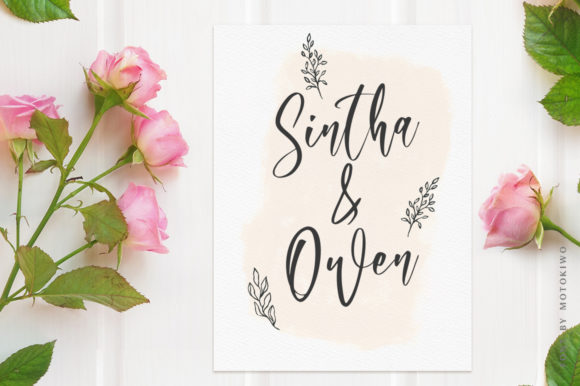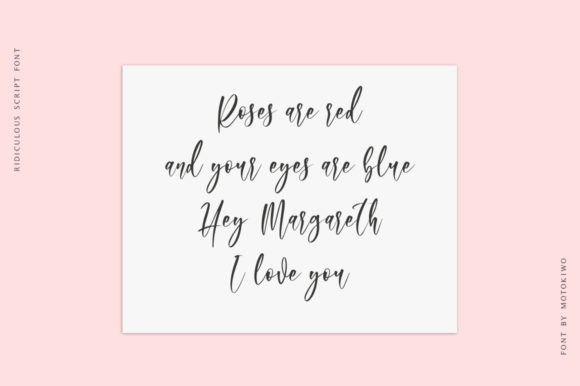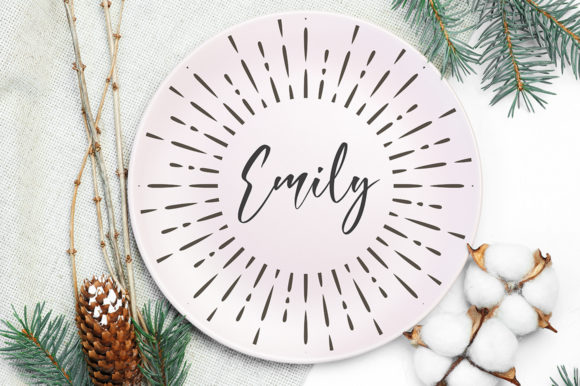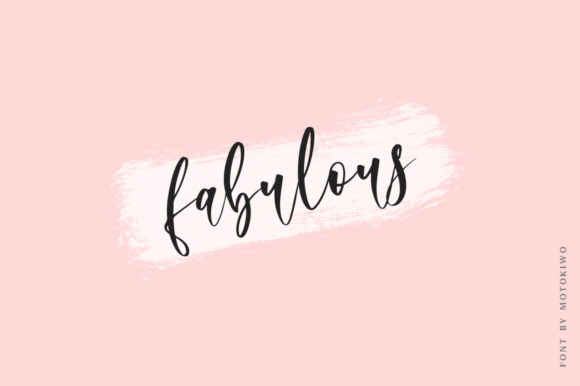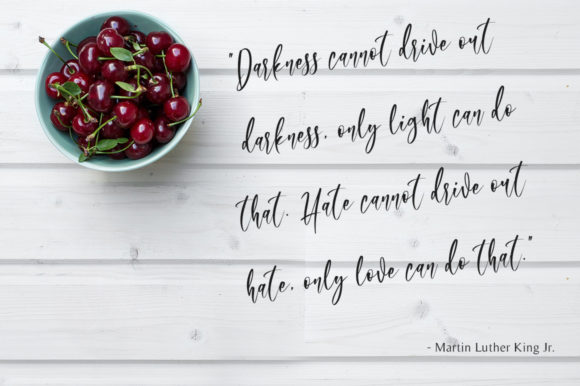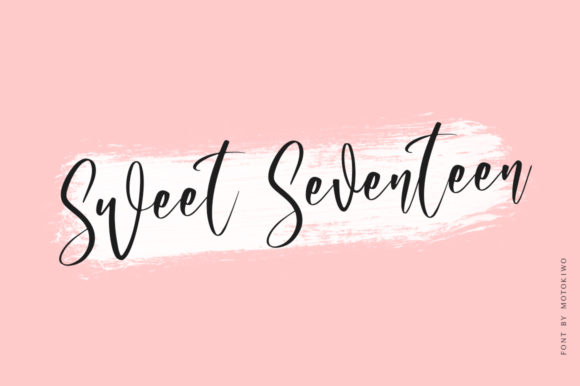
Introduction to Ridiculous Font
This joyful and modern calligraphy font features an incredibly romantic flow.
Itโs bouncy, beautiful, and flexible, so itโs highly recommended for wedding crafts, as well as for projects that require a sweet, playful and charming feel Get inspired by its unique appeal, and elevate any crafting project with this one-of-kind script.